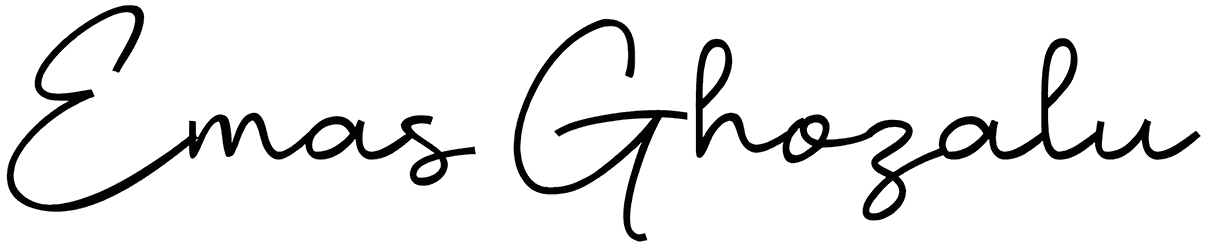
e Emas Ghozalu Font
Create a unique signature for a designer, a chic business card for a manager, or so forth with this handwritten font to highlight your creative talents. The e Emas Ghozalu font’ letters are realistic and modern, and you can use them for varied texts. Let’s apply this postcard font to your new layout and see how amazing it will be.